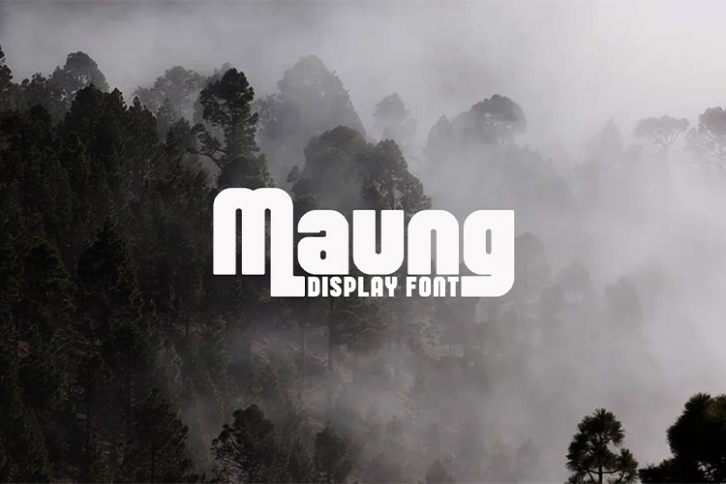
Maung is a beautiful font that was designed by NicoMuslib. It's a great choice for designers and creatives who need such a font. It was released on February 5, 2020 and the file size is 11.20 MB. Maung may give a more youthful, expressive and casual look to your project. It is a very beautiful, refined, elegant, and high-quality font.